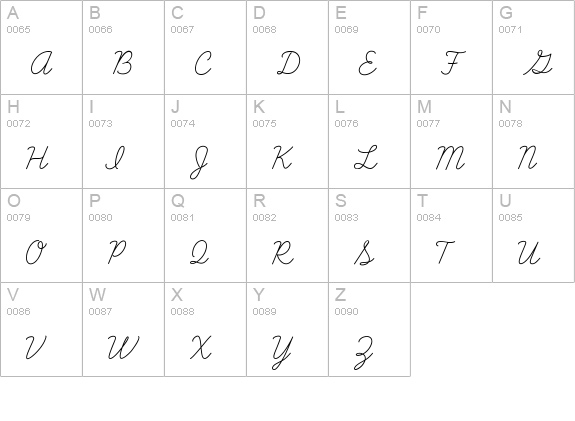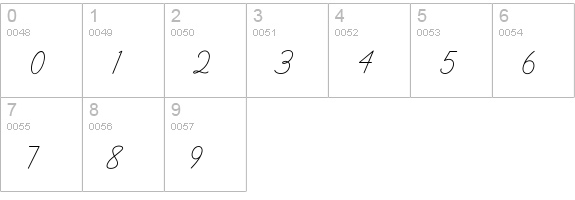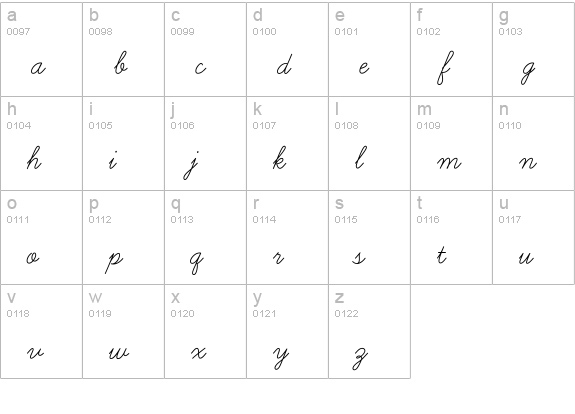
Learning Curve Font Details
The Learning Curve font is a charming and whimsical typeface that brings a touch of handwritten elegance to your design projects. With its gentle curves and graceful strokes, this font exudes a sense of warmth and friendliness, making it perfect for adding a personal touch to invitations, greeting cards, and more. Best of all, the Learning Curve font is completely free to download at FontsMarket.com! Whether you're a student looking to add a creative flair to your school projects or a designer in need of a versatile and approachable typeface, this font has you covered. Don't miss out on the opportunity to enhance your designs with the enchanting beauty of the Learning Curve font – download it today and let your creativity flourish!